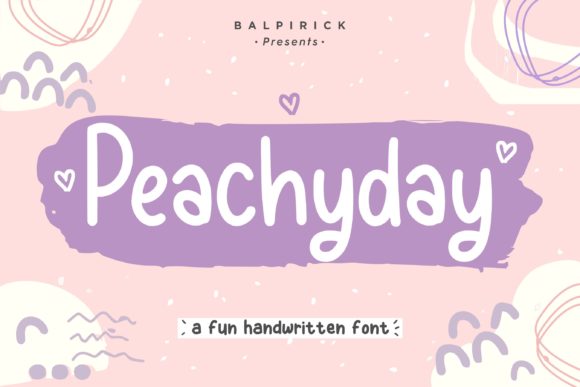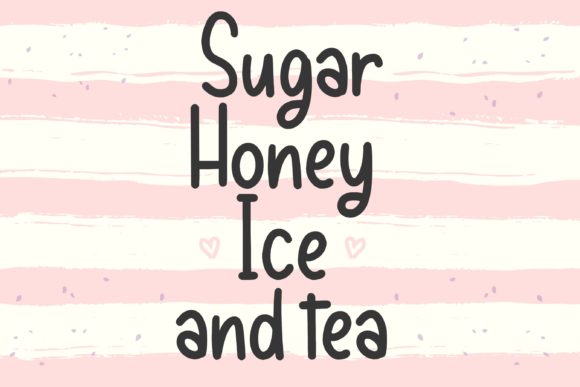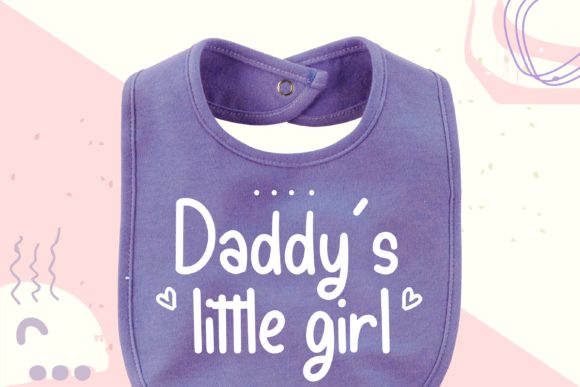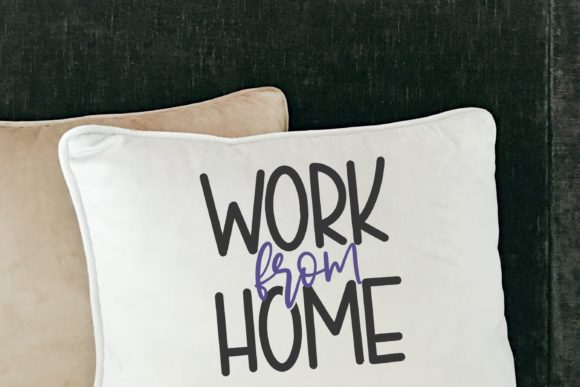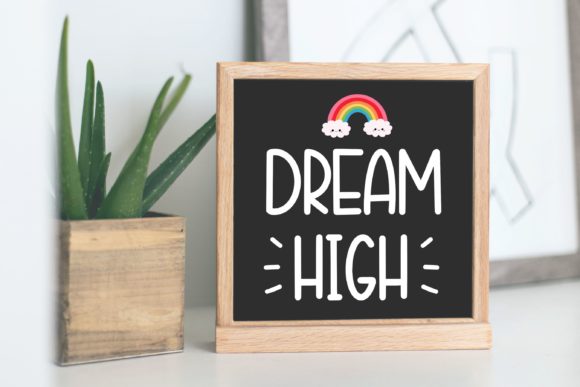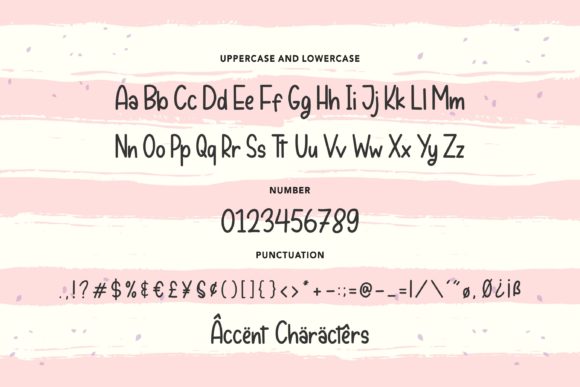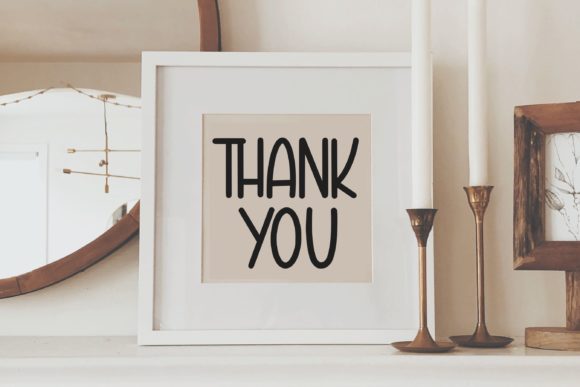
Peachyday Font
About Peachyday Font
Peachyday is a fun and cute handwritten font. It is perfect for product packaging, branding projects, magazines, social media, wedding invitations and any project that requires a personalized look!